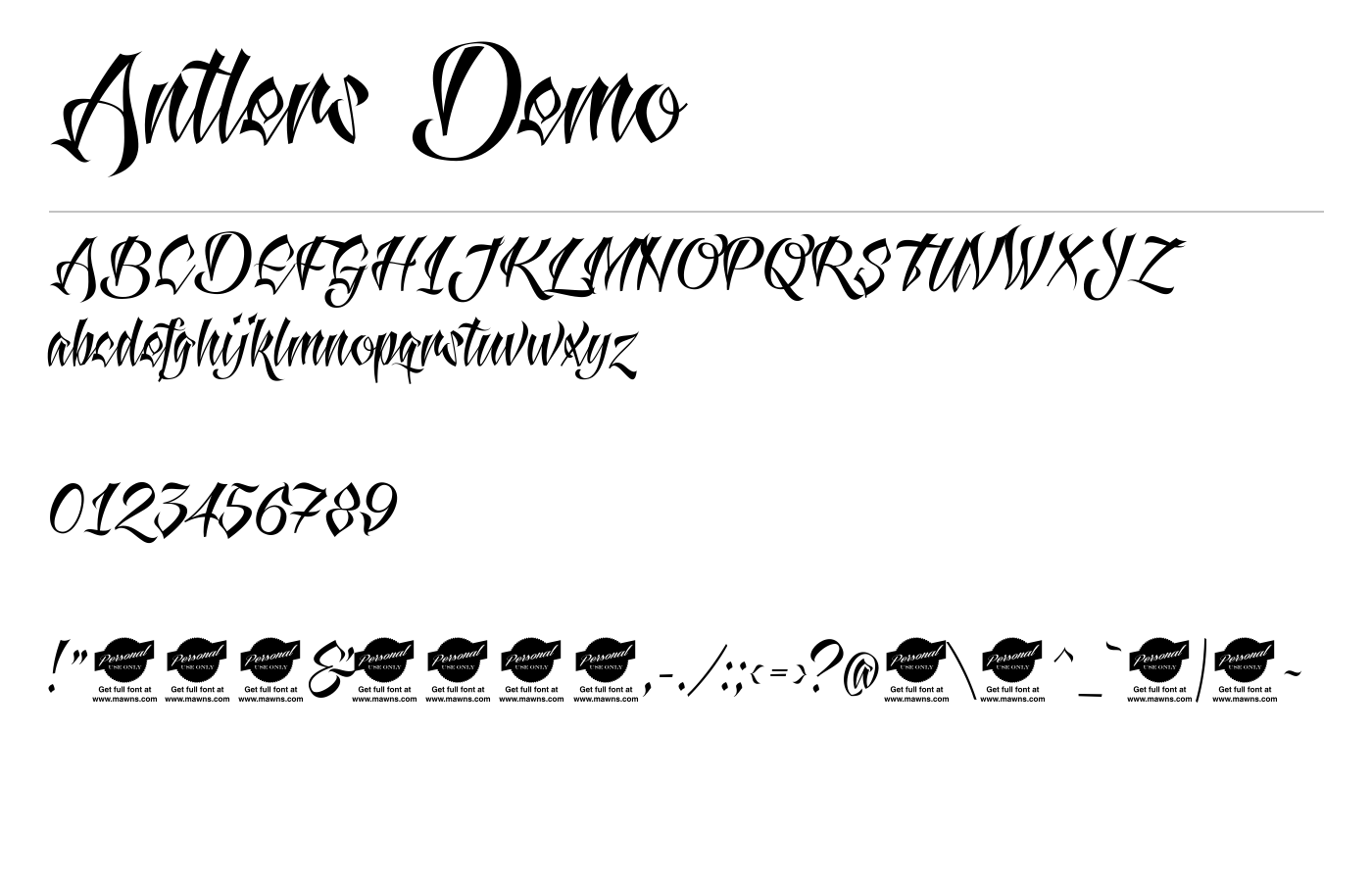
Antlers Demo is an ornate, calligraphic serif font with sharp, angular strokes and high contrast between thick and thin lines, giving it a dramatic and elegant look. Its intricate letterforms and distinctive flourishes make it perfect for decorative uses like logos, invitations, and branding where a vintage or gothic style is desired. This font adds a sophisticated, artistic flair to any design, especially in headline or display settings.
| Font family | Antlers Demo Font |
| Designer | Måns Grebäck |